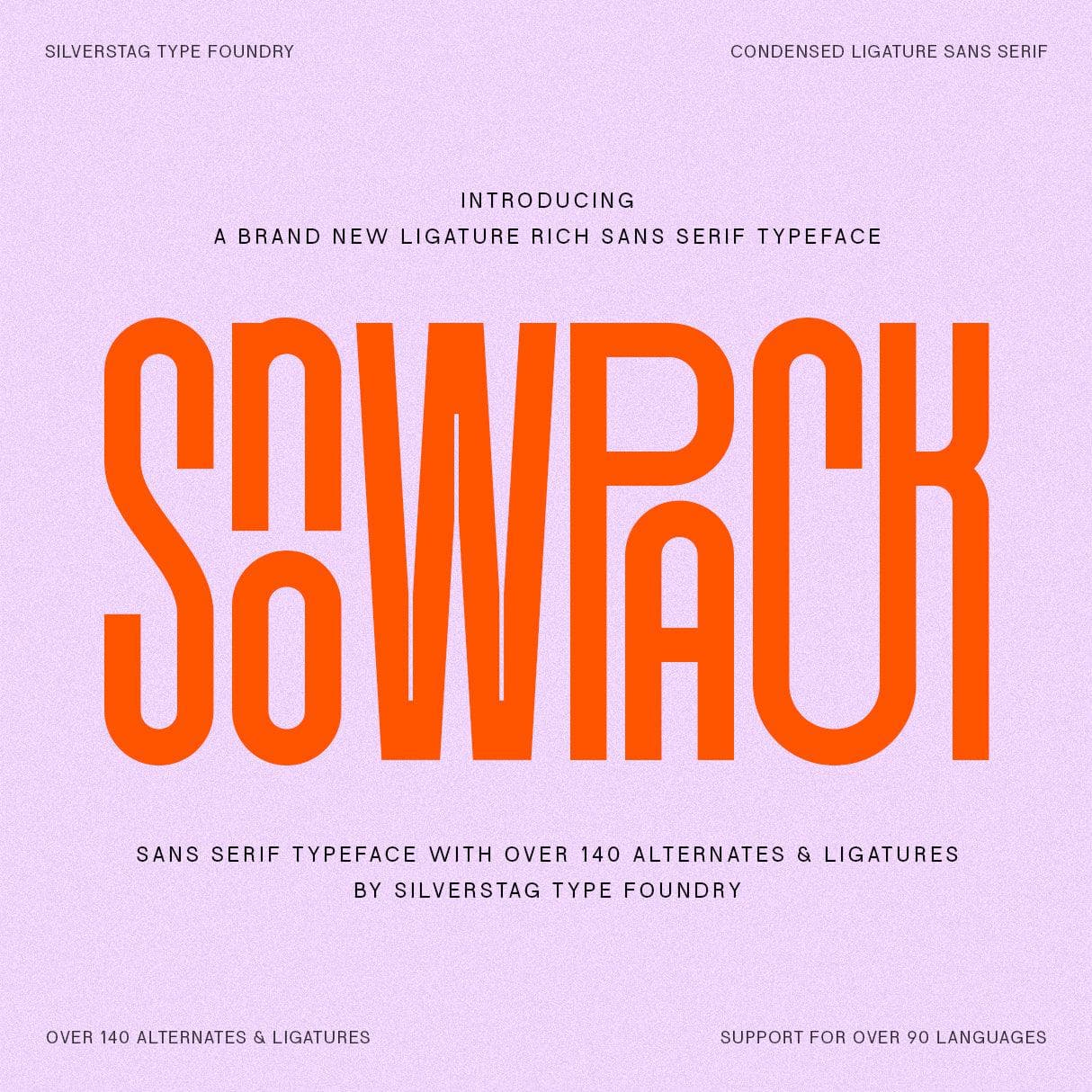
<p><strong>SLTF Snowpack: The Bold and Ultra-Condensed Sans Serif Typeface</strong></p><p>Unleash your creativity with SLTF Snowpack, a cutting-edge sans serif font designed to make a bold statement. With its ultra-condensed letterforms, over 140 ligatures and alternates, and support for 90+ languages, Snowpack is your go-to typeface for projects that demand sleek sophistication and versatility.</p><p>Available in four unique styles—Regular, Regular Outline, Round, and Round Outline—Snowpack offers endless possibilities for customization and creative expression.</p><p><strong>Key Features</strong></p><ul><li><p><strong>Ligature Rich:</strong> Over 140 custom ligatures and alternates for dynamic and creative typography.</p></li><li><p><strong>Ultra-Condensed Design:</strong> A space-saving yet bold sans serif style that grabs attention.</p></li><li><p><strong>Multilingual Support:</strong> Covers over 90 languages, perfect for global designs.</p></li><li><p><strong>Four Variants:</strong> Regular, Regular Outline, Round, and Round Outline, giving you unmatched flexibility.</p></li></ul><p>SLTF Snowpack is the ideal font for branding, editorial headlines, posters, packaging, and modern logos. Its clean and sharp letterforms make it especially suitable for travel-inspired designs, urban aesthetics, and tech-focused projects. The ultra-condensed style is perfect for maximizing space without sacrificing impact, making it ideal for minimalist layouts and bold statements.</p><p>Happy creating everyone!</p>